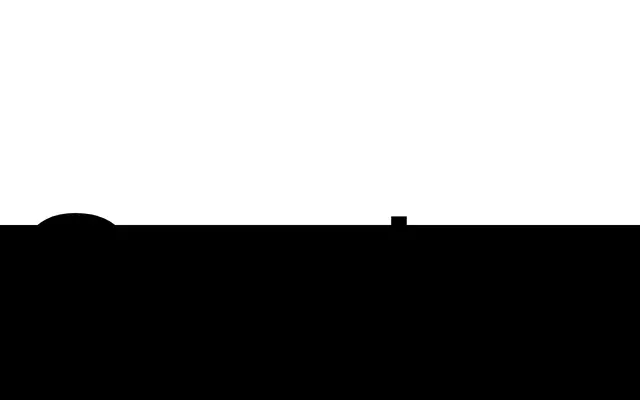
Ocarina
A 16-style geometric sans with humanist warmth, spanning Hair to Black with italics and broad Latin language support across 100+ languages.
Designed by Ondrej Jób, Ocarina pairs geometric construction with a friendly, approachable character through low contrast, natural width and a medium x-height. The family runs across eight weights from Hair to Black, each with a matching italic, totalling 16 styles. Figure support is thorough, covering proportional lining and oldstyle, tabular lining and oldstyle, superscript, subscript and fractions, with additional features including a stylistic set with alternate a, g and u forms.
The foundry explicitly describes it as a geometric sans-serif with a humanist touch, featuring low contrast and natural width, consistent with the geometric sans subcategory.